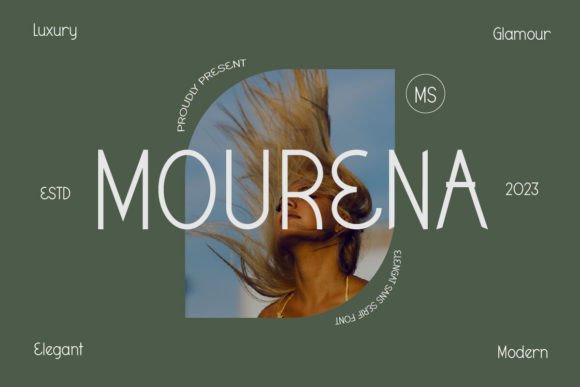
Journey through the world of typography with Mourena Font, a sans serif masterpiece, designed with eloquence and modern flair. This remarkable font family is ready to captivate your creative vision with its clean and minimalist vibe. Inspired by the allure of quotes, Mourena Font is your perfect companion to craft designs that speak volumes.
Explore the boundless possibilities with Mourena Font. Adorn your book covers with captivating titles that draw readers in. Elevate your magazine designs with a touch of sophistication and elegance. Create captivating social media posts that demand attention. Design enchanting invitations that set the tone for unforgettable occasions. The versatility of Mourena Font extends far beyond these examples, making it an indispensable tool for any designer seeking to leave a lasting impression.
Unleash your creativity and let Mourena Font ignite your passion for design. Witness the transformation as your words take on a life of their own, commanding attention with grace and poise. Embrace the beauty of simplicity and minimalism, allowing Mourena Font to elevate your designs to new heights of artistry.
Born from the creative minds at Manlogs Studio, Mourena Font is meticulously crafted to empower designers and elevate their work. Experience the seamless integration of Mourena Font into your favorite design software, allowing you to effortlessly weave your creative vision into reality. Join the ranks of discerning designers who recognize the power of exceptional typography and embrace Mourena Font as their trusted design partner.
Discover the transformative power of Mourena Font and embark on a design journey that will leave a lasting impact. Let your imagination soar and create designs that captivate hearts and minds. Embrace the eloquence and modernity of Mourena Font, and unlock a world of creative possibilities that will redefine your design horizons.